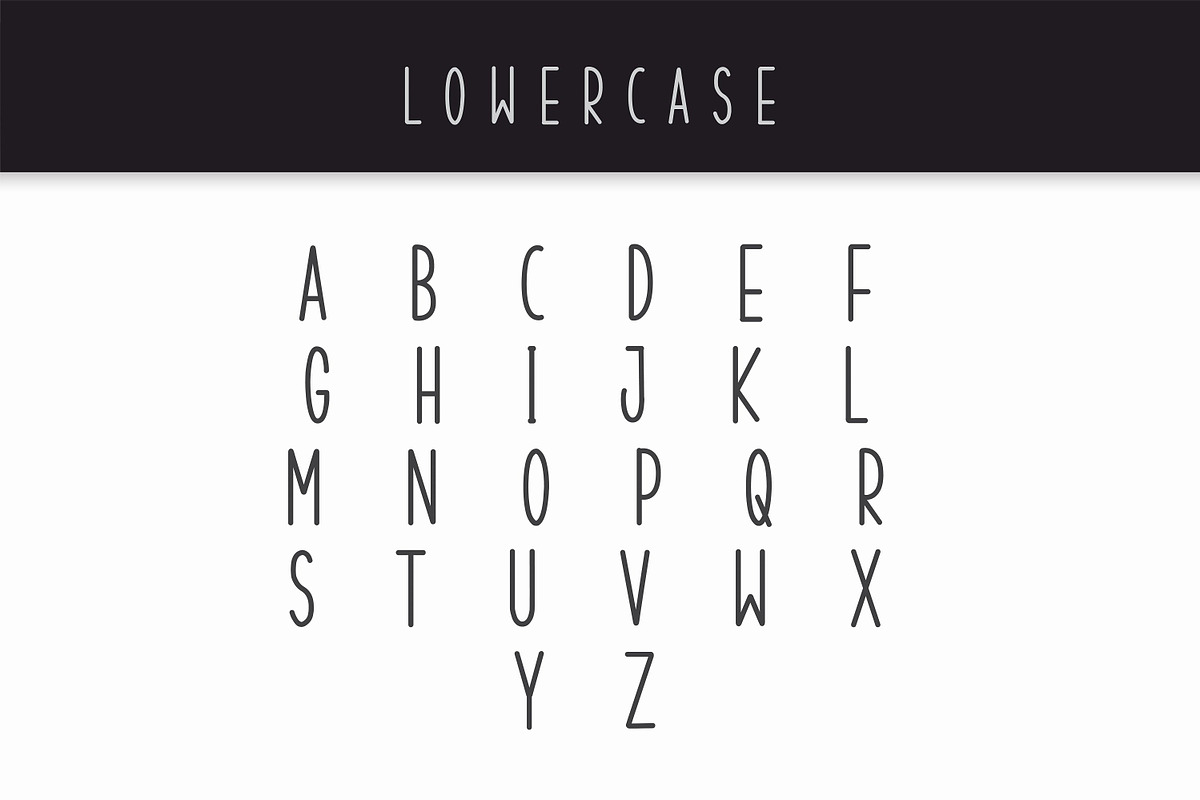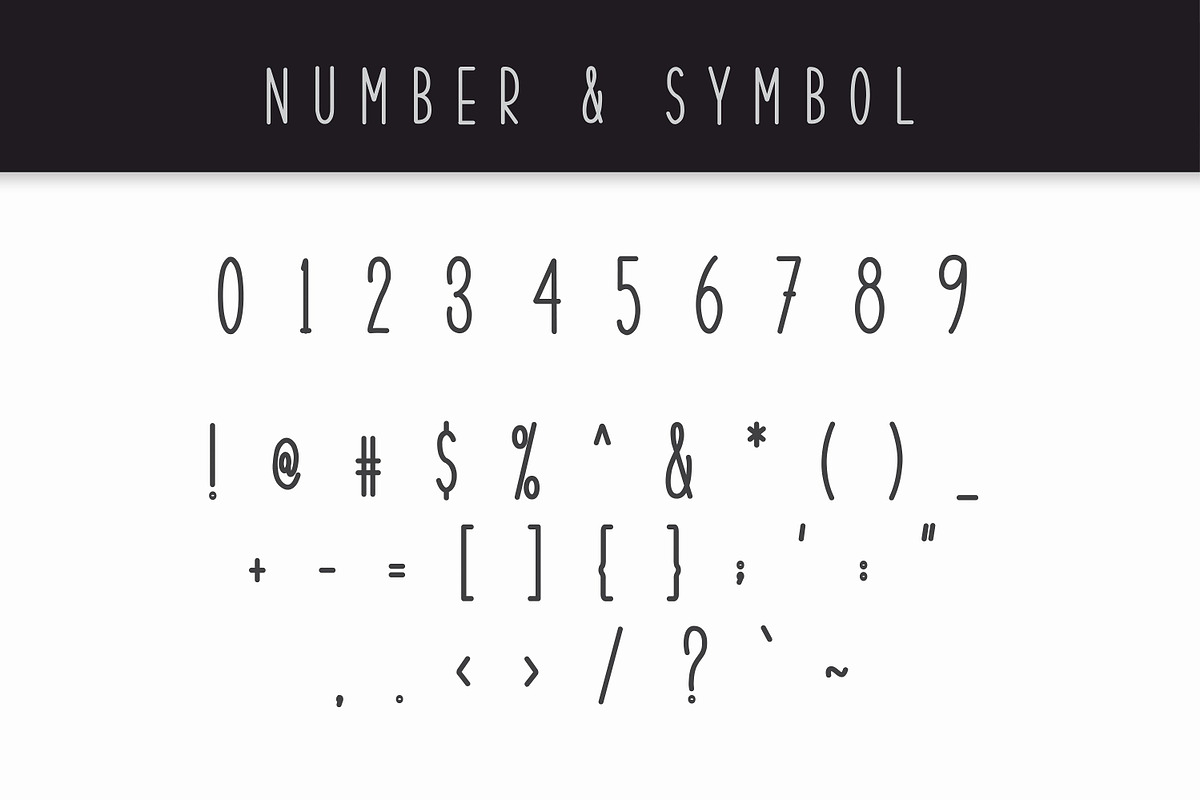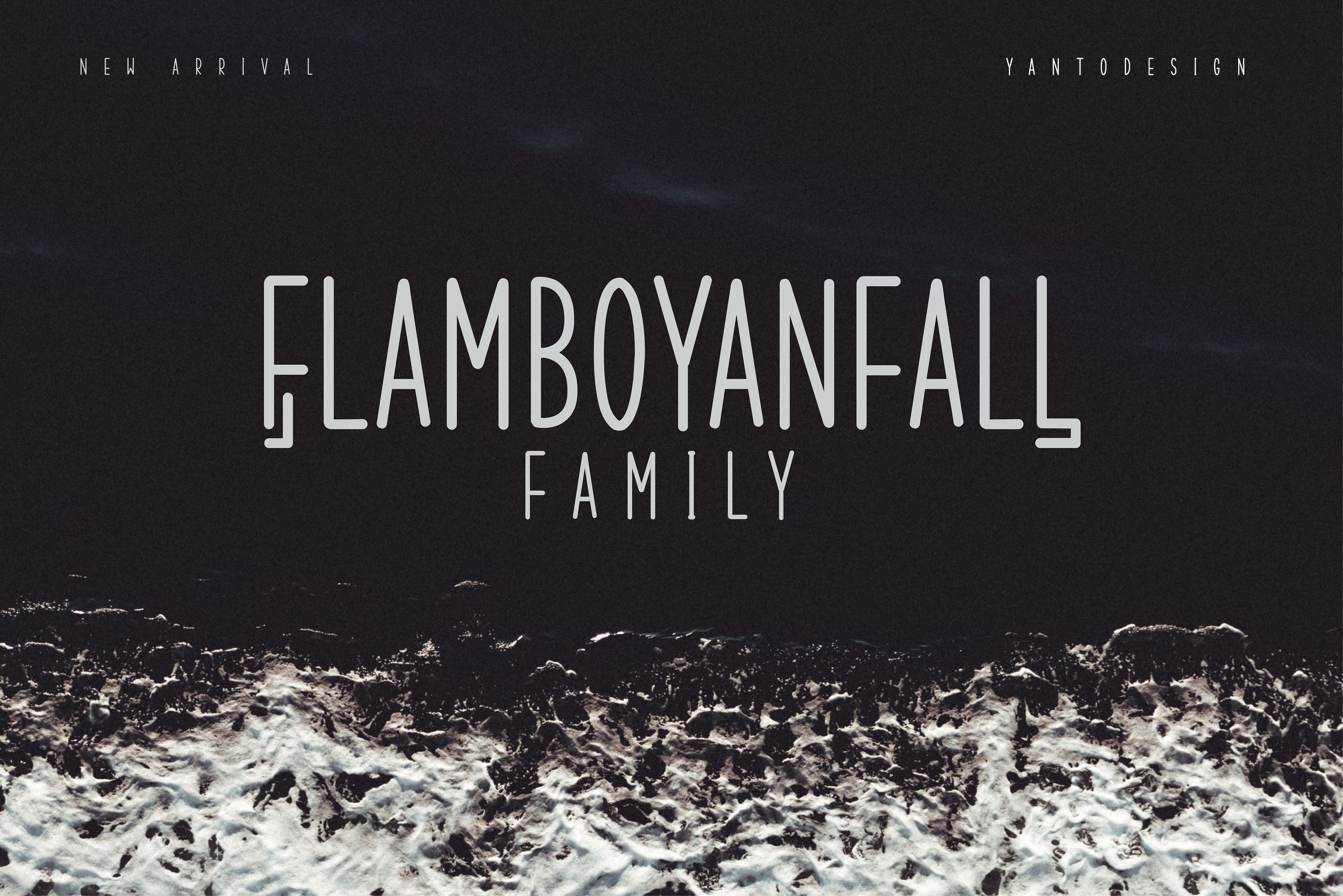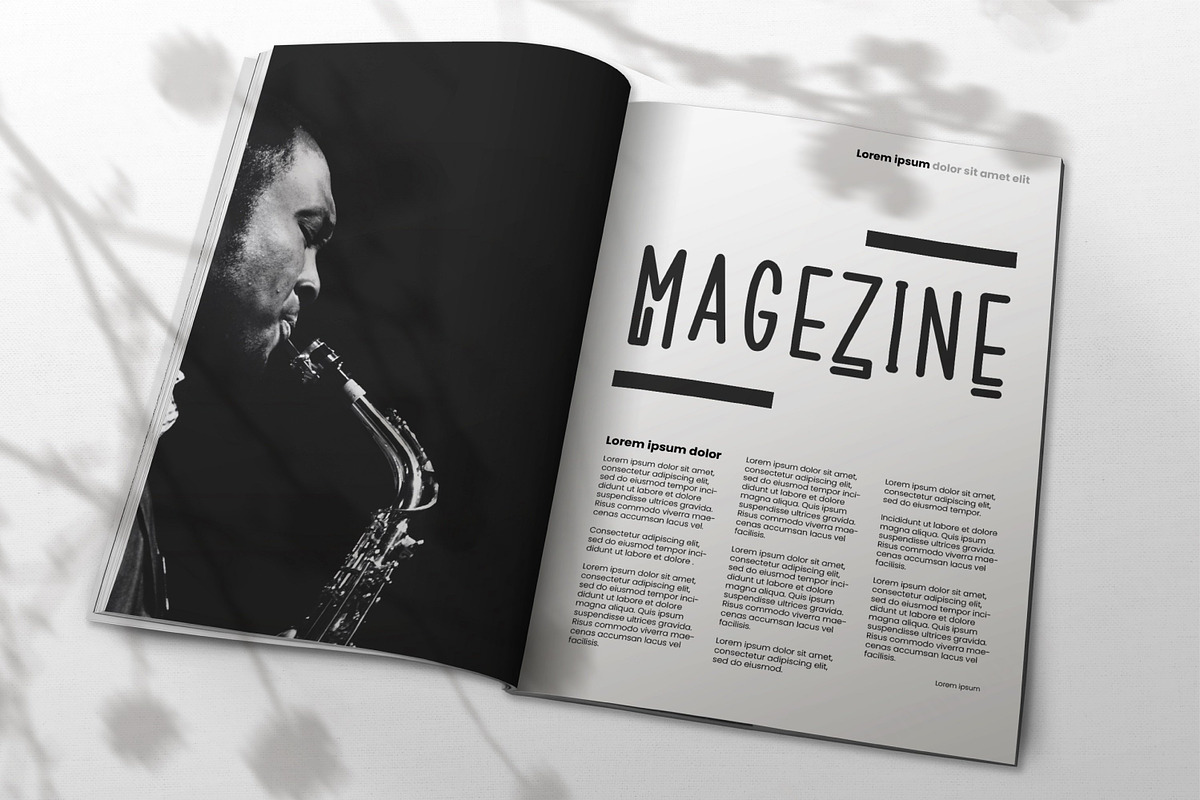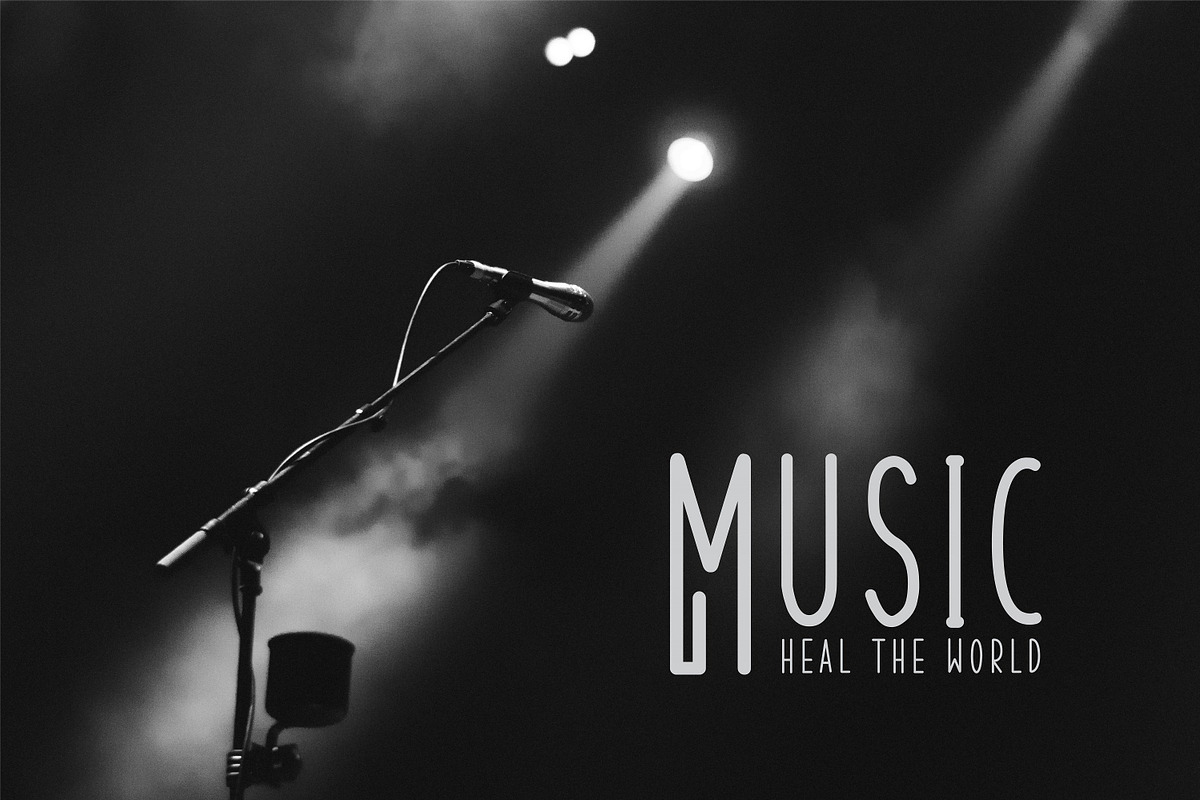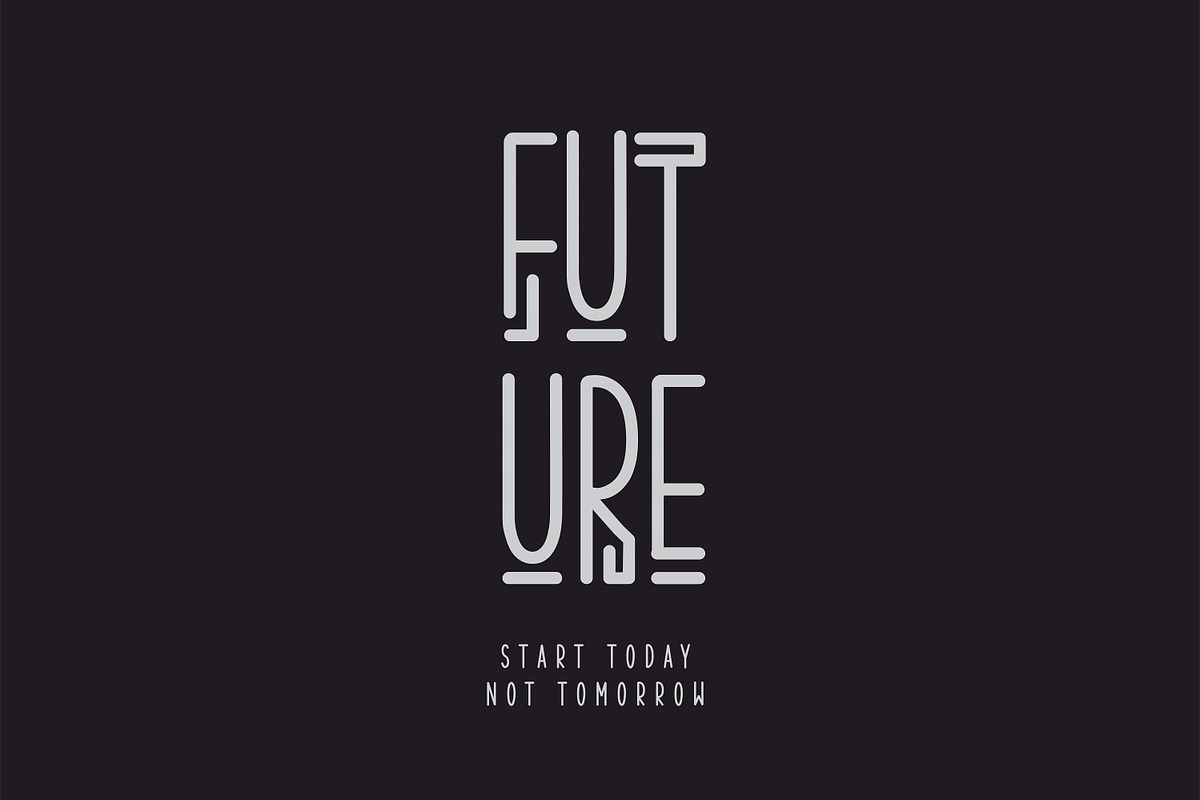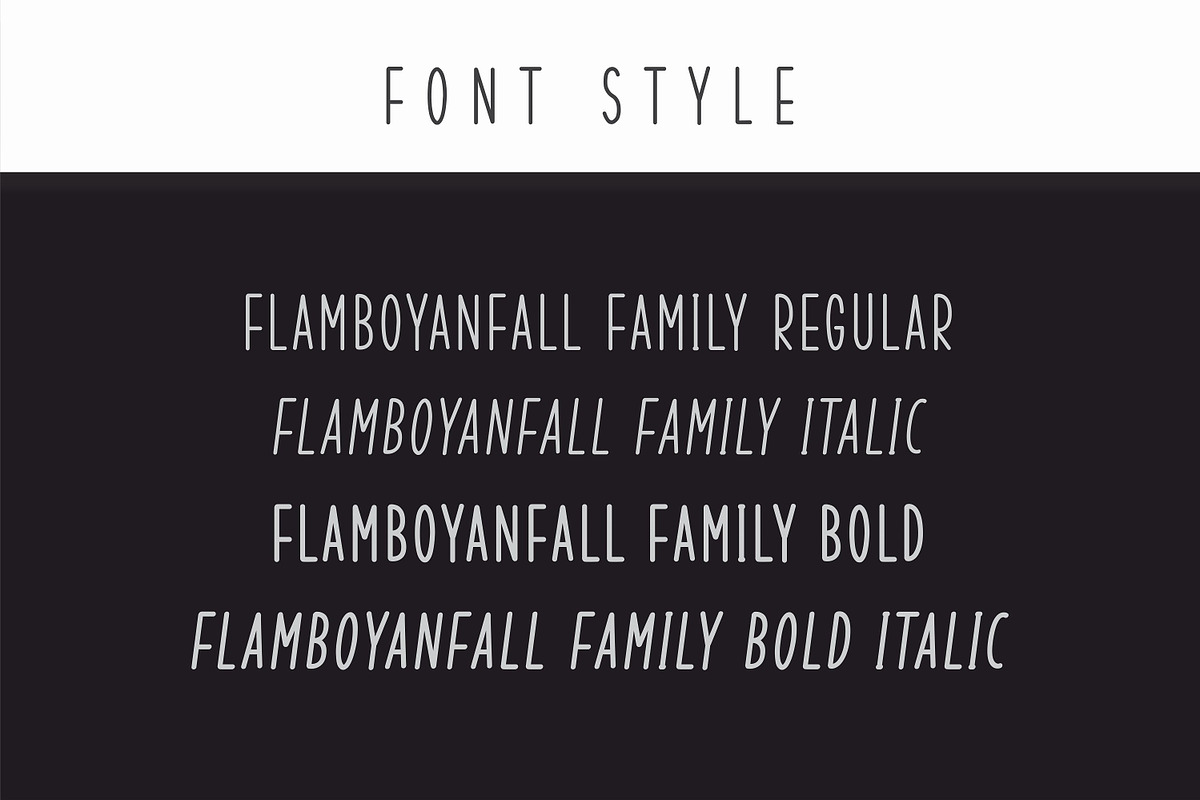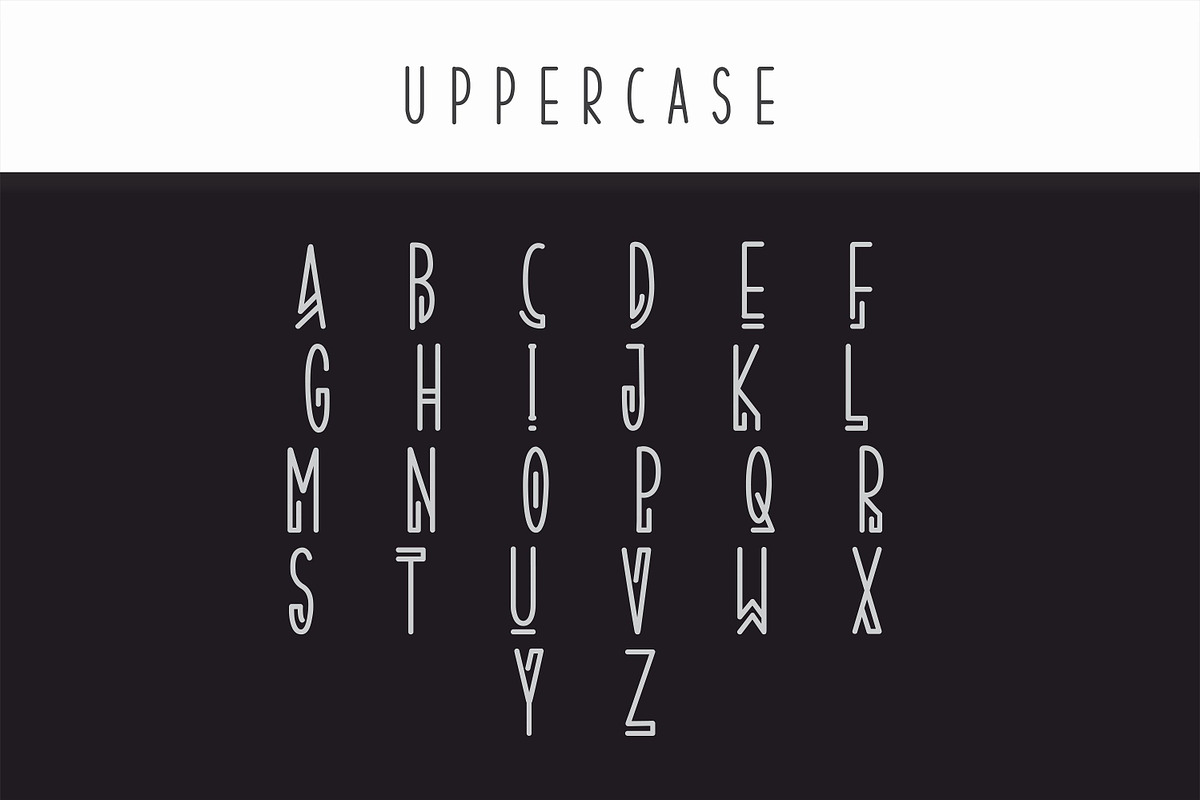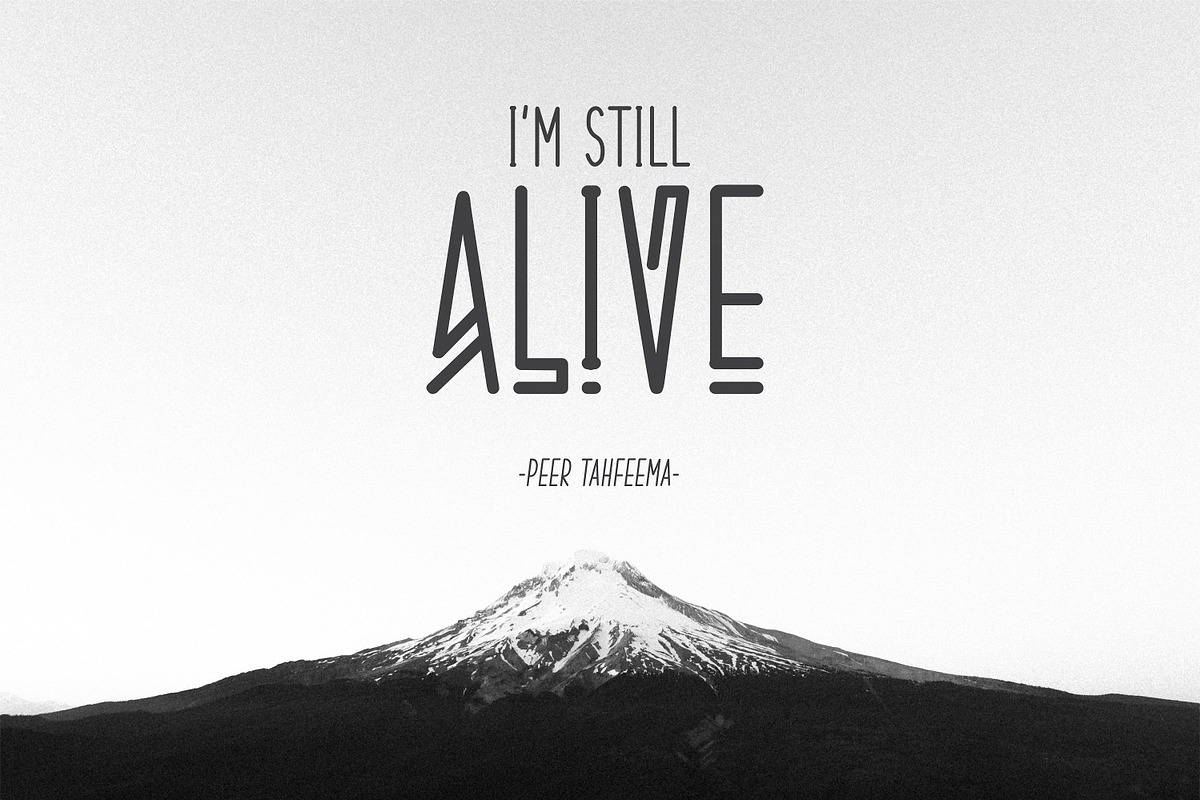
Flamboyanfall Family Font
Flamboyanfall Family Font very suitable for poster, for logo, music cover, clothing, and many many cool design projects. Flamboyanfall Family Font is uppercase and lowercas. Numeric and international font. Regular, Italic, Bold and Bold-Italic.